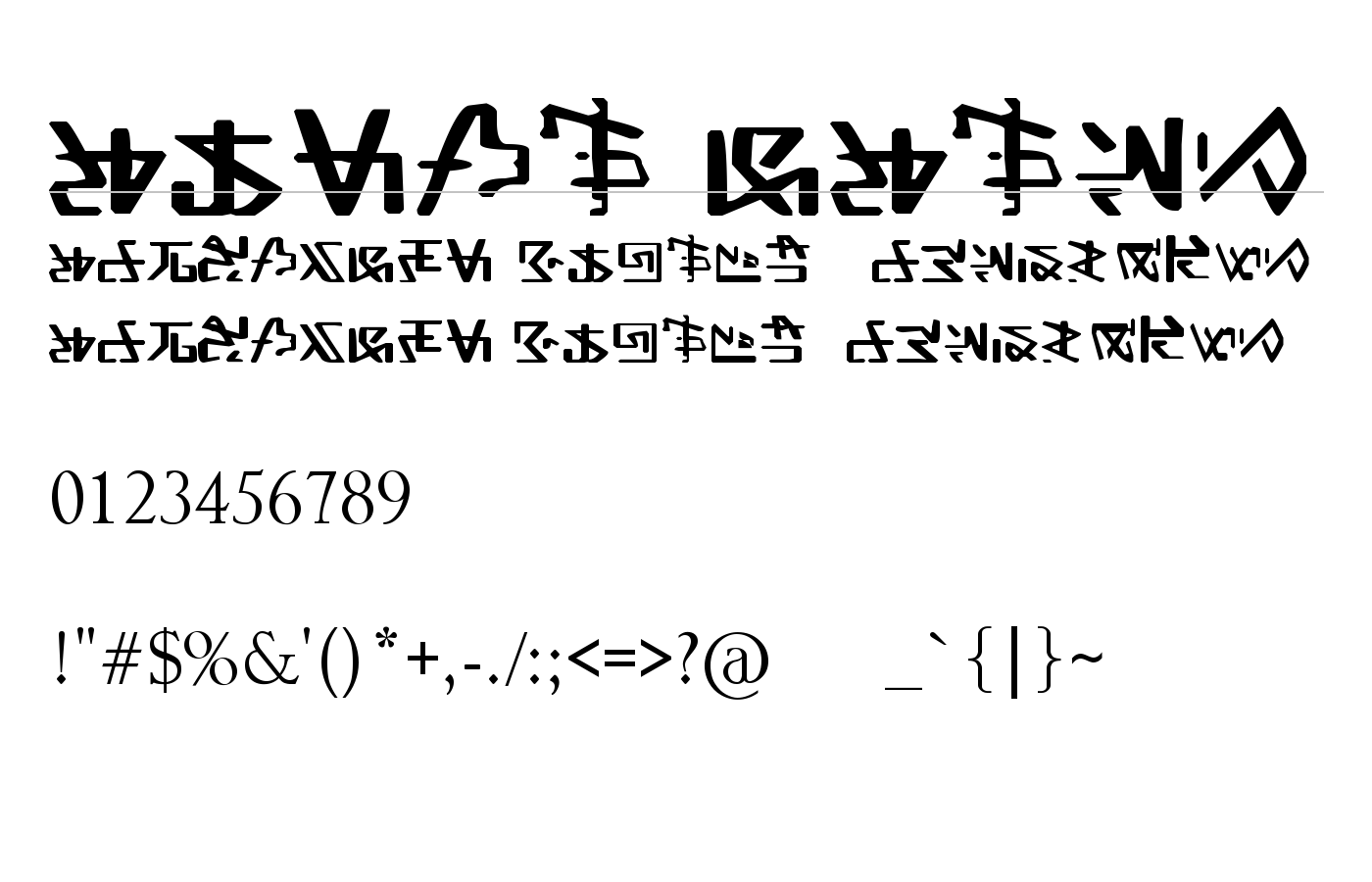
Alien Gantz is a highly stylized, decorative typeface featuring bold, angular shapes that evoke an otherworldly, sci-fi aesthetic. Its unique, almost rune-like characters with sharp, irregular strokes give it a mysterious, futuristic vibe, making it ideal for branding and designs needing a strong, unconventional impact. This font works best for headlines, logos, and creative projects that want to convey an extraterrestrial or fantasy mood.
Alien Gantz Font
About Alien Gantz Font